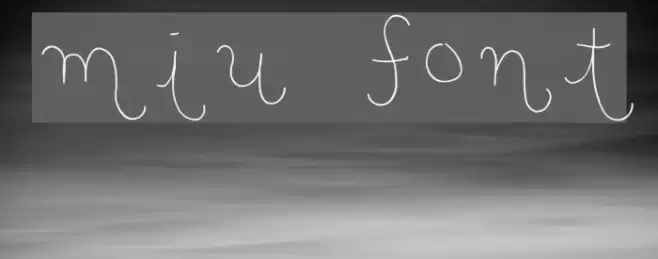
miu font Font
miu font Description
This font features a whimsical and playful design, characterized by its flowing, cursive-like strokes that give it a handwritten feel. The letters are elegantly curved with a consistent thin line weight, creating a delicate and airy appearance. The uppercase letters maintain a sense of formality with their structured yet fluid shapes, while the lowercase letters exhibit a more casual and relaxed style. The numerals and special characters follow the same aesthetic, ensuring a cohesive look across all elements. This font's unique style makes it suitable for creative and artistic projects where a touch of elegance and personality is desired.
A whimsical, handwritten-style font with elegant, flowing curves from Uncategorized fonts.
- Proposed Projects: Ideal for wedding invitations, greeting cards, artistic branding, and decorative posters.
- Use Case: Logos, Headlines, Decorative text